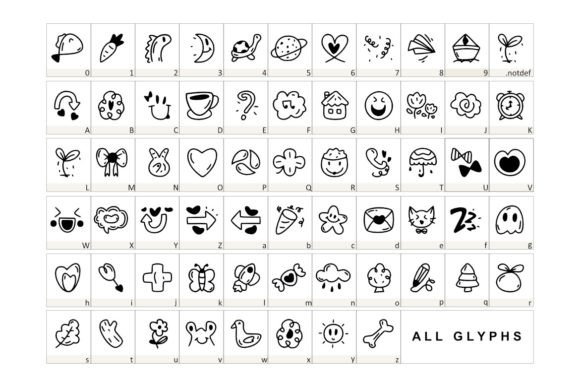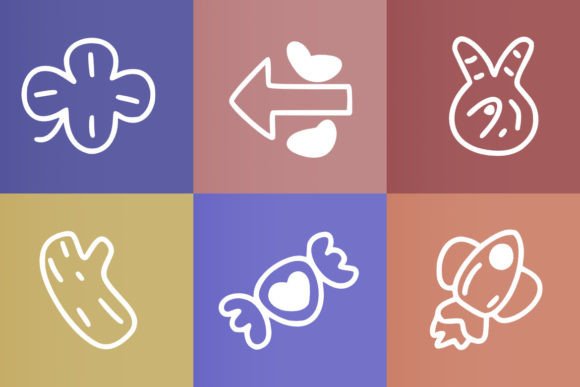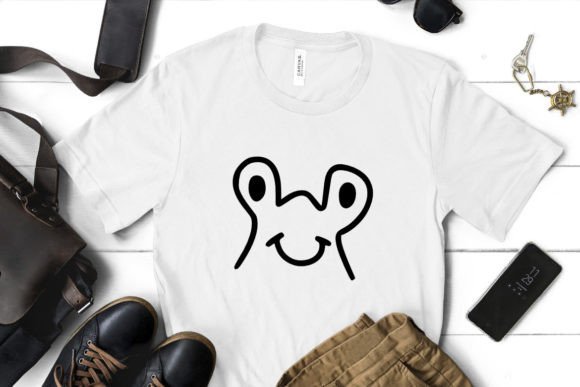
The Perfect Blend of Fun and Functionality: Funky Font
Have you ever been stuck on a design project, staring blankly at your computer screen, searching for that perfect element to make it pop? You know, that one thing that will take your design from meh to mesmerizing?
For designers, finding that elusive creative spark can be a daily challenge. But what if you had a secret weapon in your design arsenal? Enter Funky Font, a delightful dingbats font designed to add a touch of whimsy and fun to any project. Whether you’re creating stickers, posters, or apparel graphics, Funky Font is the perfect addition to your design toolkit. Its versatility and cute aesthetic make it a valuable asset for designers of all levels.
Funky Font Key Features
- Unique Characteristics: Funky Font features a unique blend of retro and modern elements, with bold lines, vibrant colors, and eclectic flair, making it perfect for adding a touch of personality to designs.
Funky Font Review
I recently had the chance to work with Funky Font, and overall, it’s a solid choice for designers looking for a fun and playful typography solution. ✨
Here are some of the things I liked about Funky Font:
- Its wide range of customization options allows designers to create truly unique and eye-catching fonts.
- It’s incredibly easy to use, even for designers who are new to font design.
- Funky Font is highly versatile and can be used in a variety of projects, from logos to social media graphics.
- ⚠️ Funky Font’s customization options can sometimes feel overwhelming, making it difficult to achieve a cohesive look.
- It may not be the best choice for projects that require a more professional or serious tone.
- Some users have reported issues with compatibility across different devices and browsers.
Overall, I’d say Funky Font is a great choice for designers who want to add a bit of whimsy and fun to their projects. While it may not be perfect, it’s definitely worth considering for the right project.
Tips for Getting the Most Out of Funky Font
For best results, use Funky Font in bold or italic styles to add emphasis to your text. You can also experiment with different font sizes and colors to create a unique look. Additionally, consider using Funky Font in conjunction with other design elements, such as graphics and images, to add visual interest to your design.
Funky Font is ideal for use in social media graphics, posters, and flyers. It’s also a great choice for creating eye-catching titles and headings in presentations and documents. With its unique and playful style, Funky Font is perfect for adding a touch of personality to your designs.
Comparison to Funky Font: While Funky Font is more playful and casual, Great Vibes is more sophisticated and refined. Great Vibes is suitable for a wider range of projects, from fashion to travel, whereas Funky Font is more geared towards entertainment and pop culture.